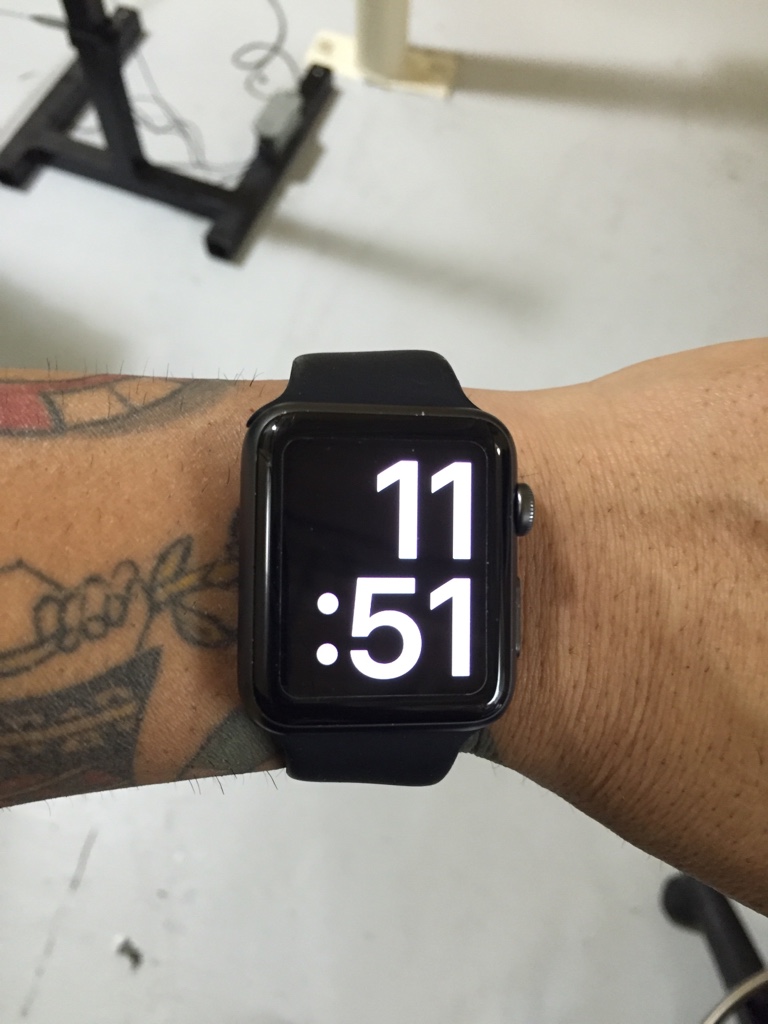
I'm sure there are other subtle changes with OS2 fonts along with obvious color additions, but has anyone noticed the font in X-LARGE is now thinner?
Perhaps it's just me going blind, but I find the pre OS2's thicker font easier to read (especially when viewing through blue nitrile gloves I wear daily).
However, I found out if you upgrade to Os2, then restore a back up from pre 0S2, the thicker font is back. Best of both worlds and perfect for me!
Just something I observed, and wonder what else changed?
Co worker's OS2 X-LARGE face
My OS2 restored from a back up X-LARGE face
narrower and bolder. I think its an improvement. I REALLY with you could customize this one... same line or two lines for time, add full width complication at bottom. etc.